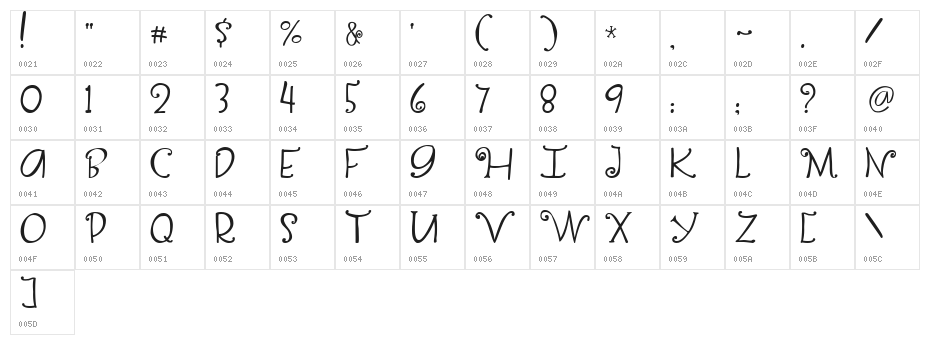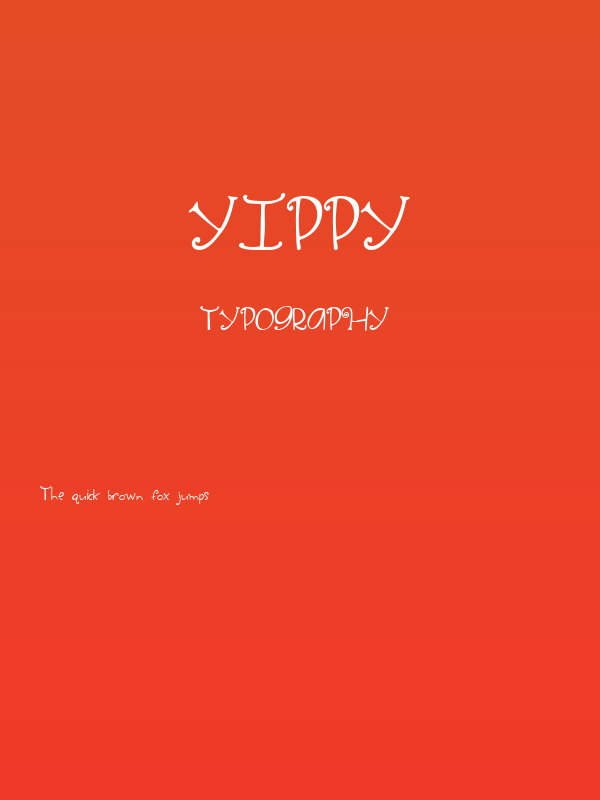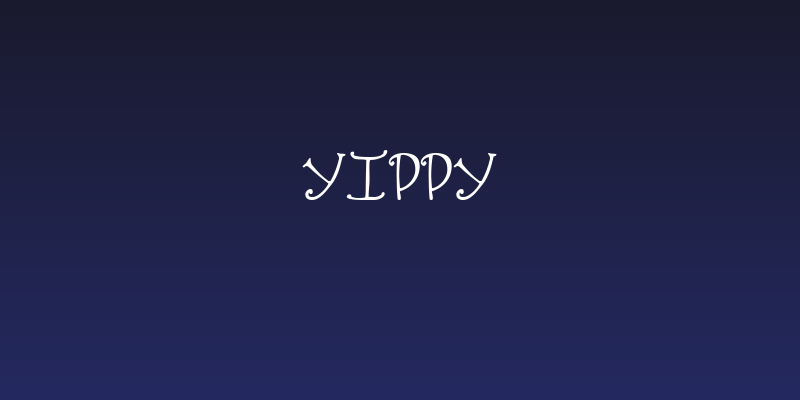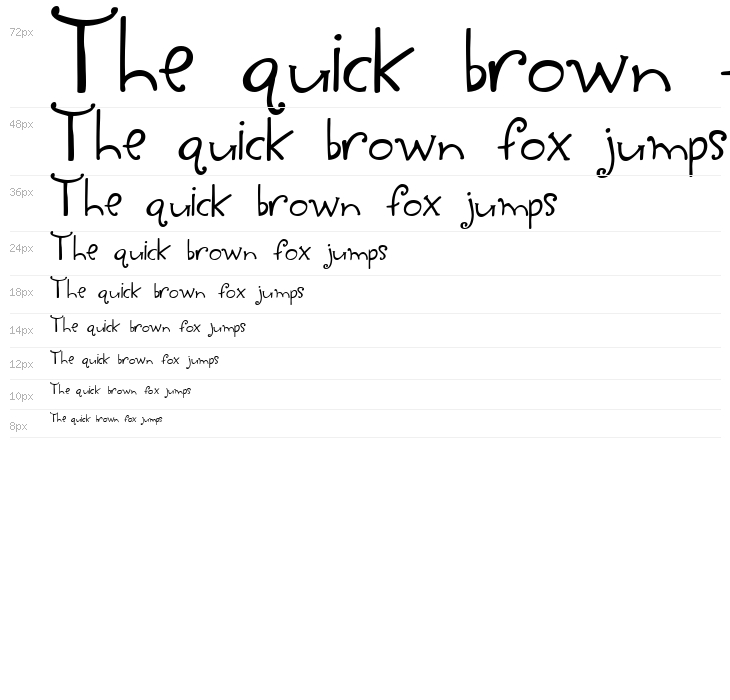
Yippy Font
Yippy Description
This playful and whimsical font features a handwritten style with unique, curly flourishes on many of the characters. The uppercase letters are bold and expressive, with a slight slant that adds to the casual, fun feel. Lowercase letters maintain the same playful aesthetic, with some characters having exaggerated loops and curves. Numbers are bold and consistent with the overall style, making them easily readable while still maintaining a quirky charm. Special characters are creatively designed, adding to the font's overall whimsical nature.